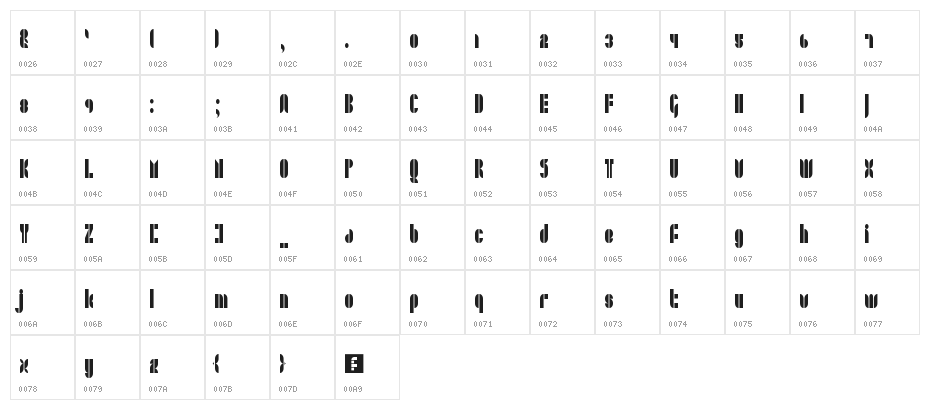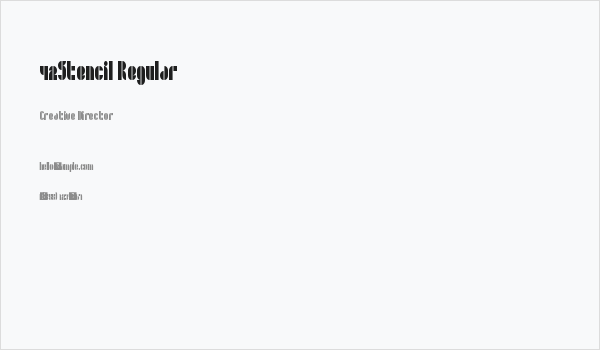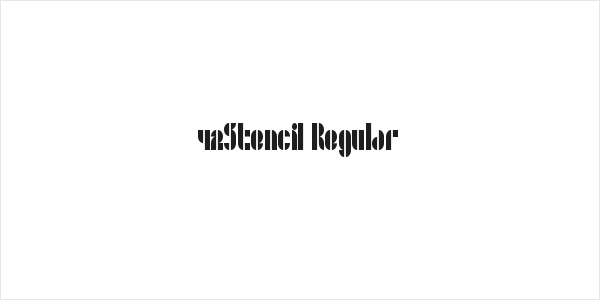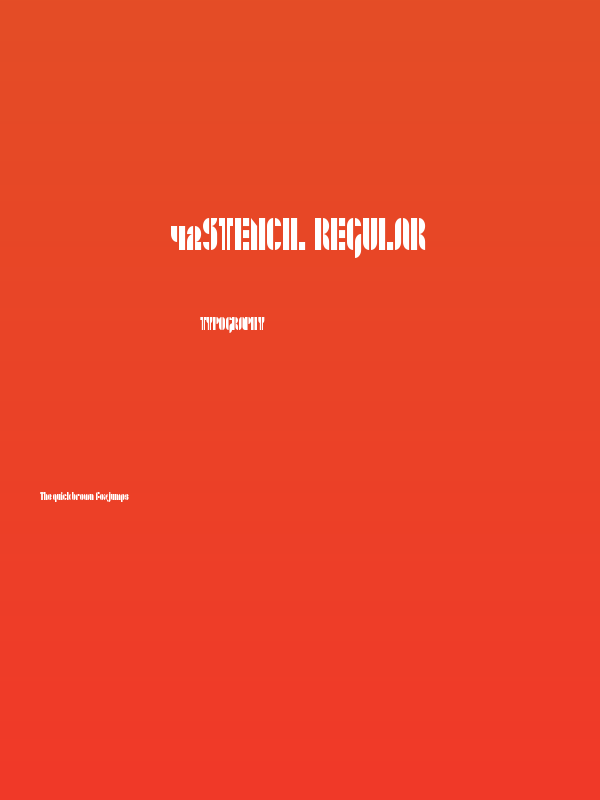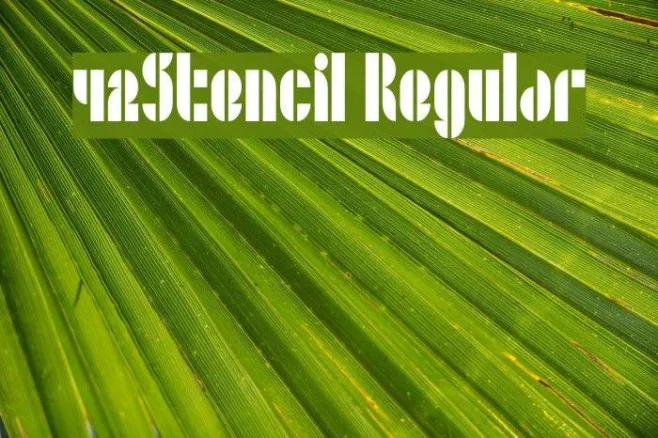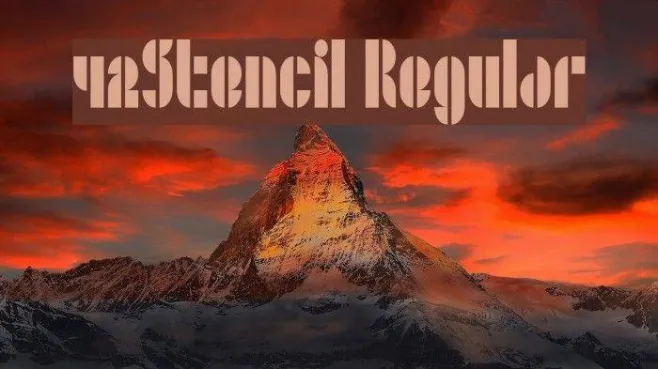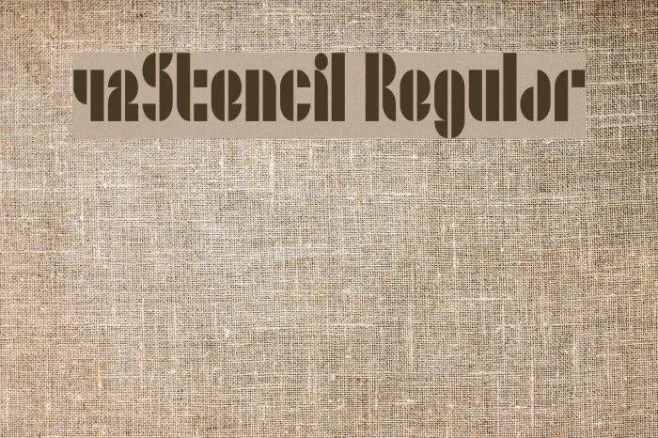
42Stencil Regular Font
42Stencil Regular Description
This font features a bold, stencil-like design with distinct, geometric shapes and sharp angles. The characters are constructed with solid, block-like forms that create a strong, impactful presence. The uppercase and lowercase letters maintain a consistent style, with some characters featuring unique cutouts that enhance the stencil effect. The numerals and special characters follow the same bold and structured aesthetic, making them highly legible and visually striking. This font is ideal for projects that require a modern, industrial look with a touch of creativity.